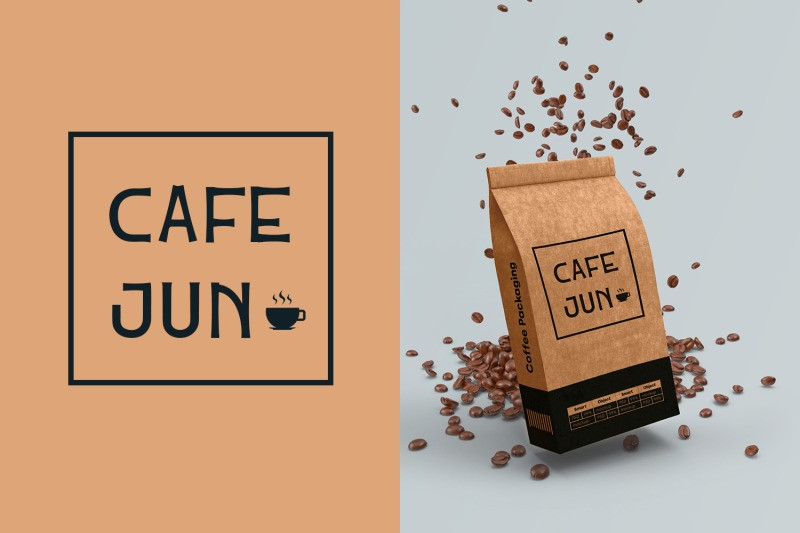
Files Font is a futuristic font, a font inspired by the visual of technology that we can find from logo, sci-fi movies, games, and the present gadgets. Designed with minimalist style and unique letterforms, a perfect choice to use on logos, labels, posters, packaging, books, movies, presentations, games, and much more!
Files Font
| Classification: | Display Fonts, Sans Serif Fonts, Techno / Futuristic Fonts |